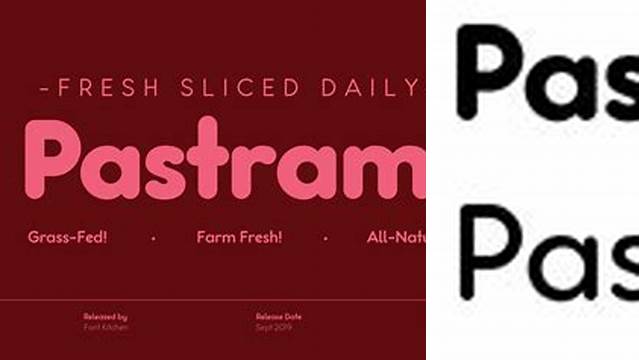
Hey guys! Ever stumbled upon a font that just clicks? For many designers and creatives, the Pastrami font might just be that click. This quirky, eye-catching font has gained popularity for its unique personality and versatility. If you're on the hunt for the Pastrami font in TTF format and don't want to spend a dime, you're in the right place. This guide is your ultimate resource for everything Pastrami font – from its history and uses to where you can download it for free and how to install it.
1. What Makes Pastrami Font So Special?
Before we dive into the download details, let's talk about what makes the Pastrami font so special. This isn't just another typeface; it's a character in itself. The Pastrami font is often described as playful, retro, and slightly whimsical. Its unique letterforms give it a hand-drawn feel, making it perfect for projects that need a personal touch. Think logos, posters, social media graphics, and even wedding invitations! The Pastrami font has this incredible ability to add a dash of fun and nostalgia to any design.
2. The History and Inspiration Behind the Pastrami Font
The story behind the Pastrami font is just as interesting as the font itself. While the exact origins can sometimes be a bit murky in the world of digital fonts, many believe it draws inspiration from vintage signage and lettering styles. Imagine the old deli signs from the mid-20th century – that's the vibe the Pastrami font often evokes. This retro aesthetic is a big part of its appeal, connecting with a sense of nostalgia and authenticity. Designers often turn to the Pastrami font when they want to capture a classic, yet contemporary, feel.